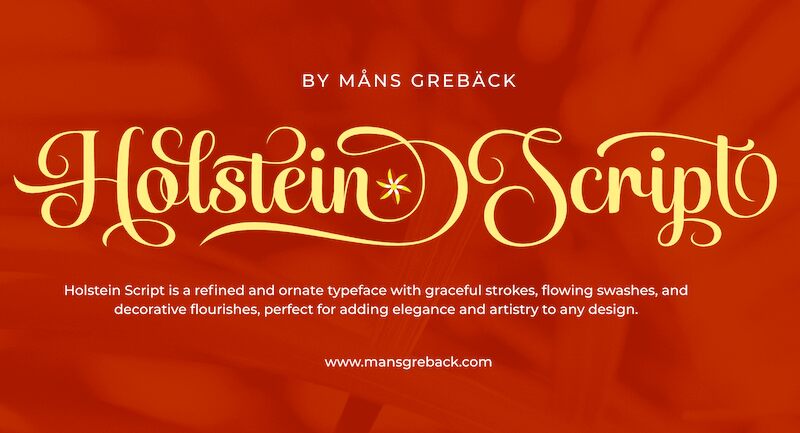
Holstein Script font
Holstein Script
Holstein Script is a graceful calligraphic typeface that combines elegance with playfulness. Its sweeping curves and ornate loops create a charming aesthetic while maintaining a refined structure. The tall ascenders and generous swashes contribute to its celebratory personality, ensuring it remains legible and balanced.